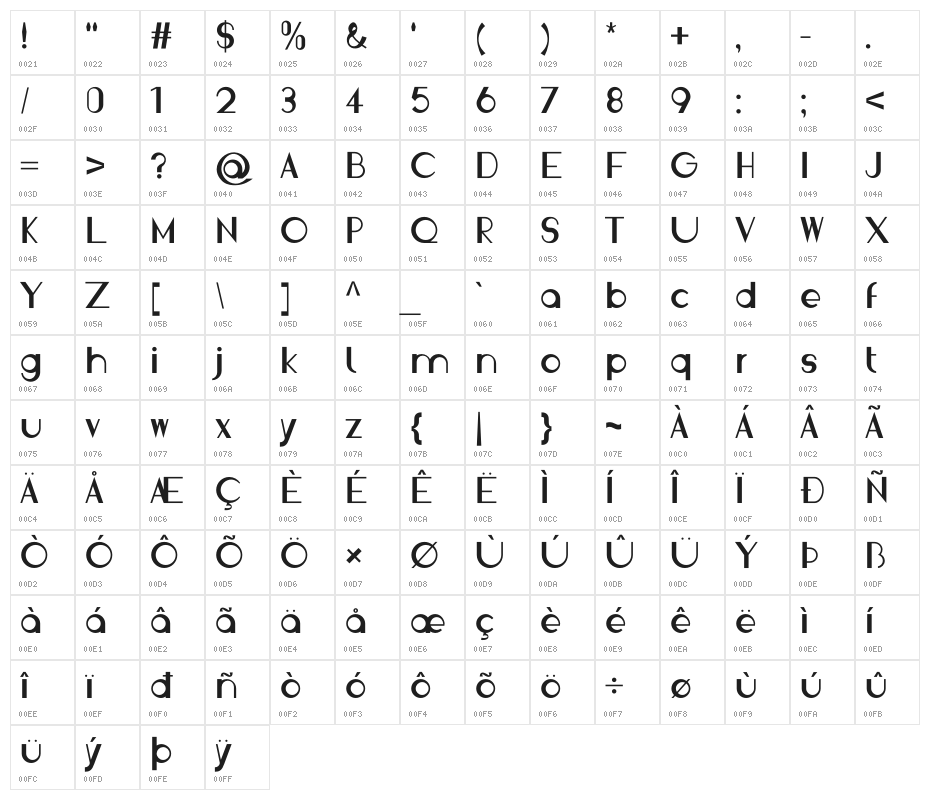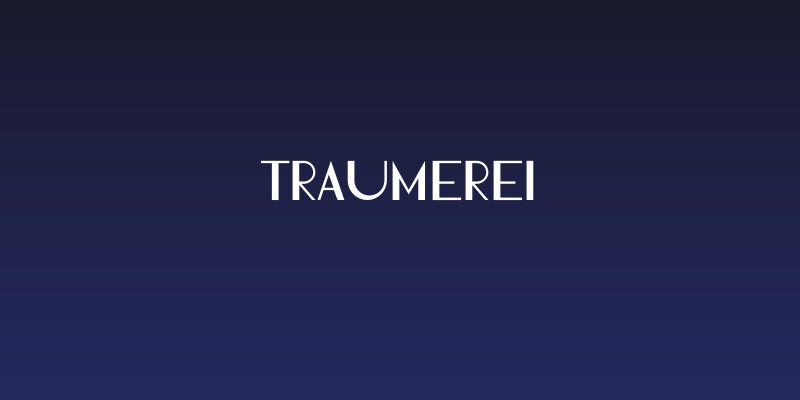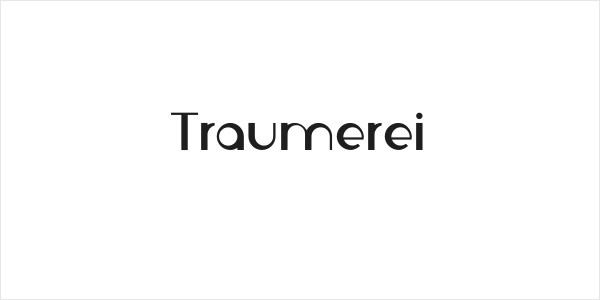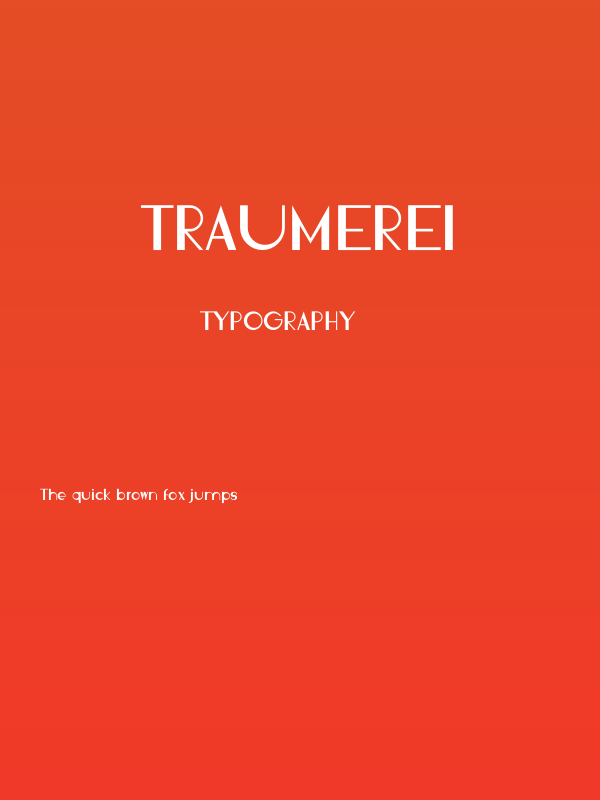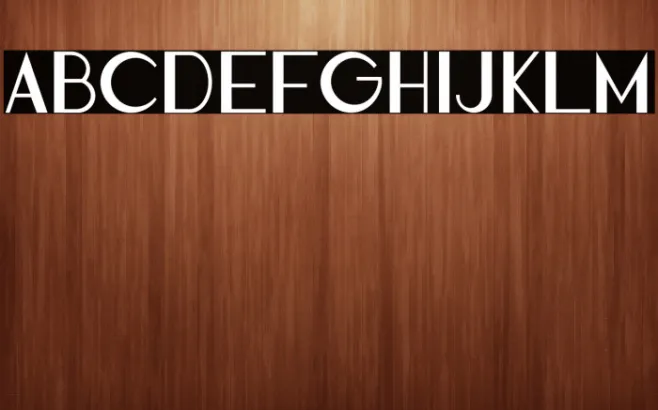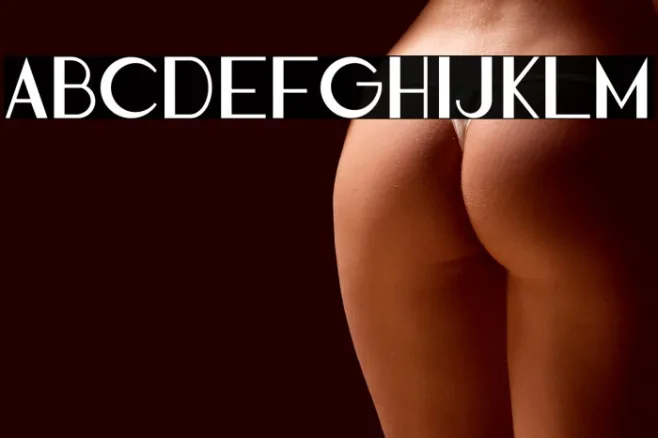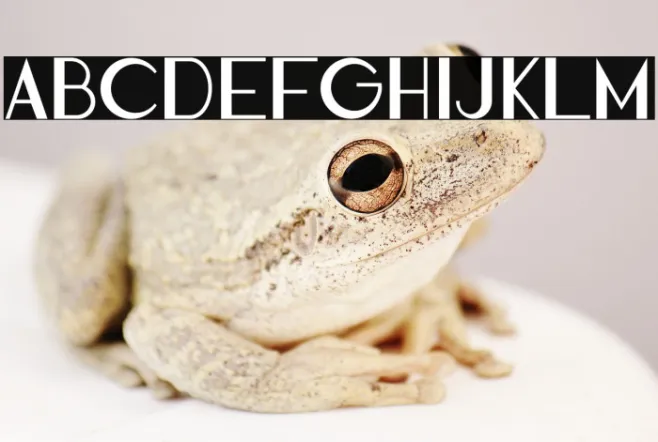
Traumerei Font
Traumerei Description
This font features a modern and sleek design with clean lines and geometric shapes. The uppercase letters are bold and striking, while the lowercase letters maintain a consistent style with a slightly softer appearance. The numerals are distinct and easy to read, complementing the overall aesthetic. Special characters are well-integrated, maintaining the font's cohesive look. The design is versatile, suitable for various applications, and offers a contemporary feel that is both professional and approachable.
| Use Case | Headlines, Logos, Digital Media |
| Proposed Projects | Ideal for branding, advertising, digital media, and editorial design projects. |